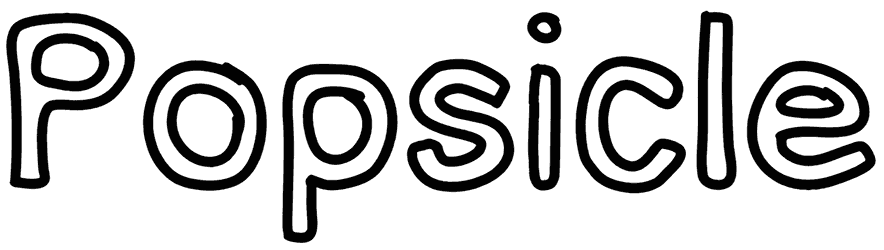
Popsicle Font
Popsicle is an outline font that has a smooth texture and tilted characters, thus conveying a sense of jauntiness, playfulness, grunge, or exotic.
This cartoon font would be really practical for designing prominent graphic content including posters, illustrations, digital banners, logos, or gift cards. Needless to say that if you need another font the same as this one, don’t waste time and immediately visit our archive.
This font is best used for larger text sizes.